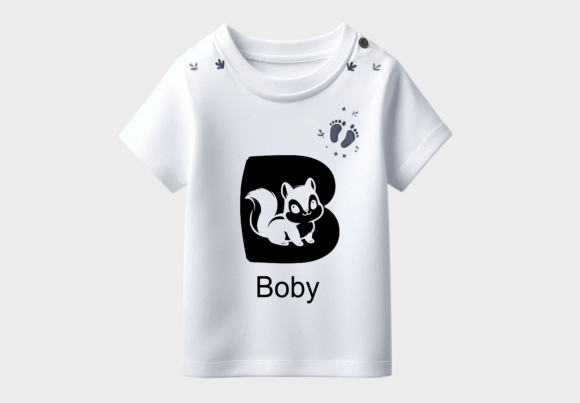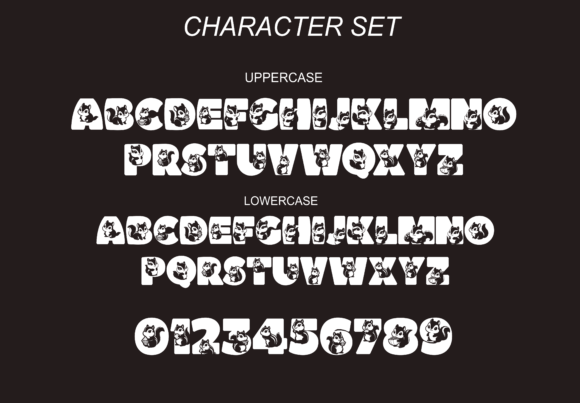
Unleashing the Magic of Chipmunk Font: A Playful and Versatile Typeface
Welcome to the enchanting realm of Chipmunk, a robust and captivating typeface that embodies the essence of playful boldness, unabashed joy, and distinctive appeal. This mystical font is reminiscent of a glowing jack-o’-lantern grinning in the cool Halloween dusk, radiating an irresistible charm that captures the viewer’s attention. In this article, we’ll dive into the world of Chipmunk Font, exploring its compelling features, versatility, and the magic that happens when inspired design meets spirited individuality.
The Allure of Chipmunk Font
Chipmunk Font is a masterful blend of whimsy and sophistication, making it an ideal choice for designers and crafters seeking to add a touch of personality to their projects. Its bold and playful demeanor instantly evokes a sense of wonder, transporting viewers to a world of fantasy and enchantment. The font’s distinctive appeal lies in its ability to convey a sense of mystique, as if it’s whispering secrets to those who dare to listen.
Compelling Features and Versatility
One of the most significant advantages of Chipmunk Font is its remarkable versatility. Its compelling features seamlessly merge with any style, elevating legibility and aesthetic appeal across various mediums. Whether you’re designing a:
- Whimsical children’s book
- Spooky Halloween invitation
- Quirky brand logo
- Playful website header
Chipmunk Font adapts effortlessly, injecting a dose of personality and charm into your project. Its robust design ensures that it remains legible even at smaller font sizes, making it an excellent choice for body text or captions.
The Intersection of Inspired Design and Spirited Individuality
Chipmunk Font is more than just a typeface – it’s an expression of creativity and individuality. When inspired design meets spirited individuality, magic happens. This font empowers designers and crafters to push the boundaries of their imagination, experimenting with novel combinations of style, texture, and color. The result is a visual experience that’s both captivating and memorable.
Design and Crafting Applications
The possibilities are endless when working with Chipmunk Font. Here are a few ideas to get you started:
- Create eye-catching posters, flyers, or brochures for events, promotions, or products
- Design unique and engaging social media graphics, such as Facebook posts or Instagram stories
- Develop a cohesive brand identity with custom typography
- Enhance your website’s visual appeal with custom headers, buttons, or icons
Tips for Working with Chipmunk Font
To unlock the full potential of Chipmunk Font, consider the following tips:
- Experiment with font sizes, colors, and textures to create visual interest
- Pair Chipmunk Font with complementary typefaces for added contrast and hierarchy
- Use the font’s bold and playful features to draw attention to key messages or calls-to-action
- Don’t be afraid to add custom illustrations or graphics to enhance the font’s whimsical nature
In the world of typography, Chipmunk Font stands out as a shining example of playful boldness, enchanting charm, and versatility. Whether you’re a designer, crafter, or simply someone who appreciates the art of typography, this font is sure to captivate and inspire. So, dive into the irresistible realm of Chipmunk Font and experience the magic that happens when inspired design meets spirited individuality.